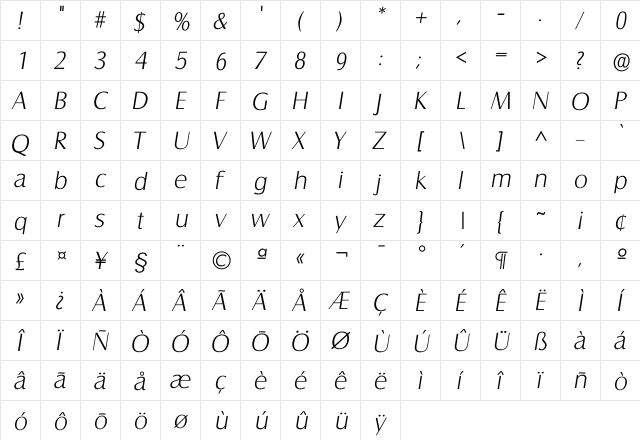
Isalzburg Xlight
Design Context for Isalzburg Typeface
Isalzburg is a composed and adaptable typeface that performs quietly and consistently across a wide range of design contexts. Its slender proportions lend an understated elegance to any composition.